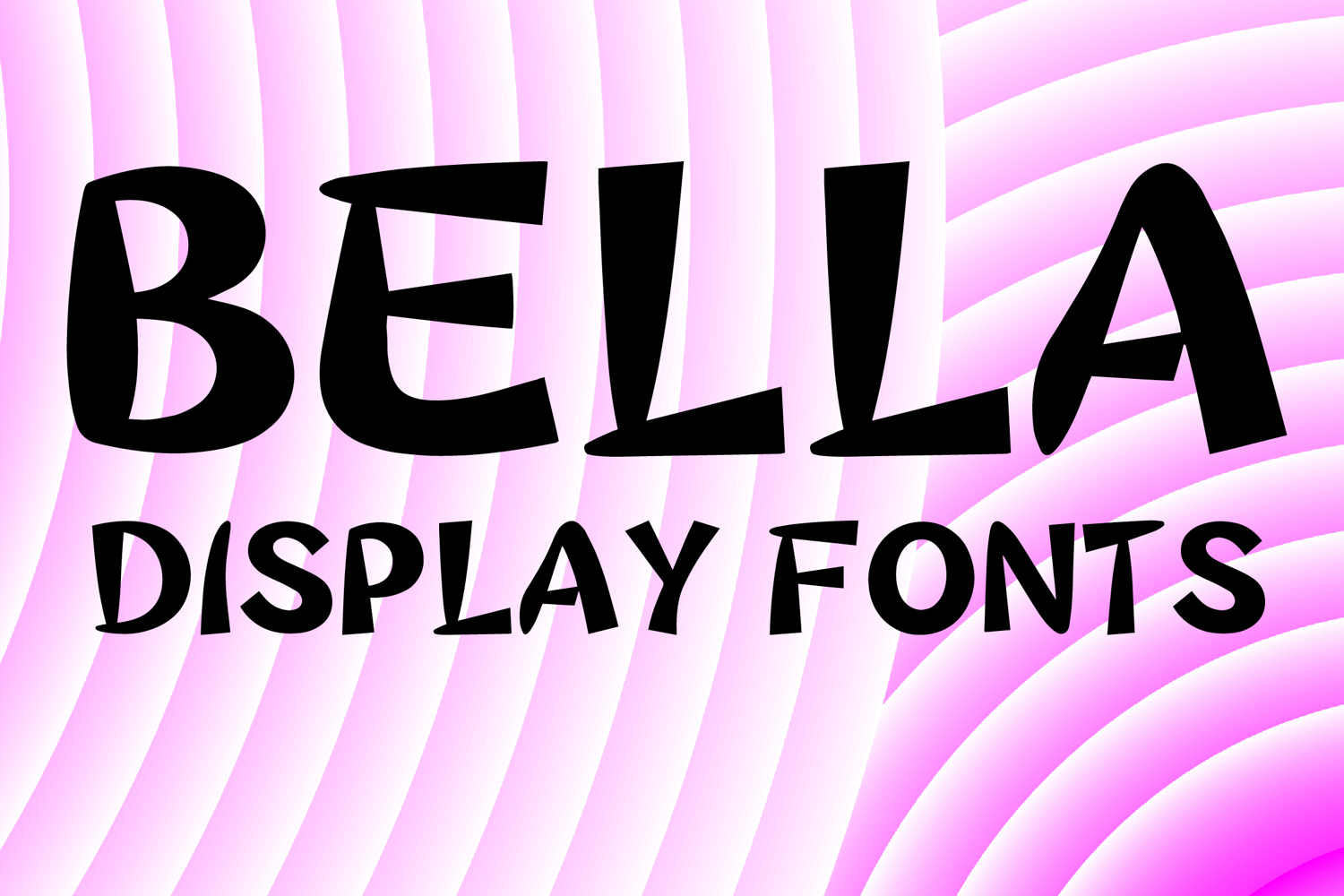
BELLA
BELLA is a bold display font with a playful handcrafted style and strong artistic charm. Its uppercase letterforms feature thick strokes, tapered edges, and slightly irregular shapes that create a fun, stylish, and eye-catching look. Designed with uppercase letters A–Z and numbers 0–9, BELLA is perfect for branding, posters, packaging, logos, social media graphics, invitations, and creative projects that need a bold and memorable statement.